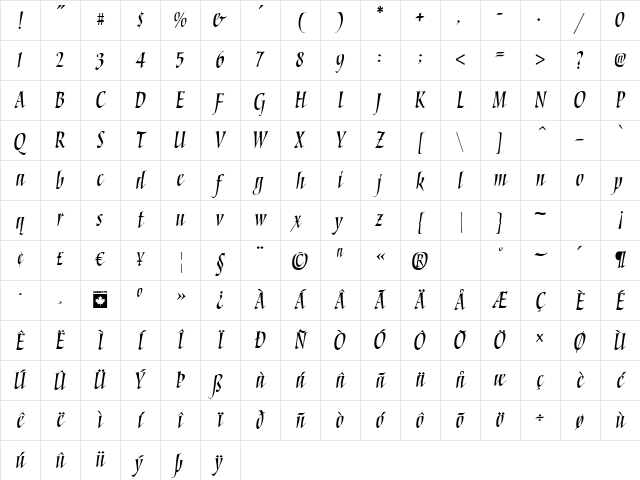
Torquemada One Bold
Foundry: Philip Bouwsma and Canada Type
Design Context for Torquemada One
Torquemada One is a composed and adaptable typeface that performs quietly and consistently across a wide range of design contexts. Its bold stroke weight gives it real presence on the page.
Who designed the Torquemada One Bold font?
This font was published by Philip Bouwsma and Canada Type. Check the technical specs section for copyright and designer details.